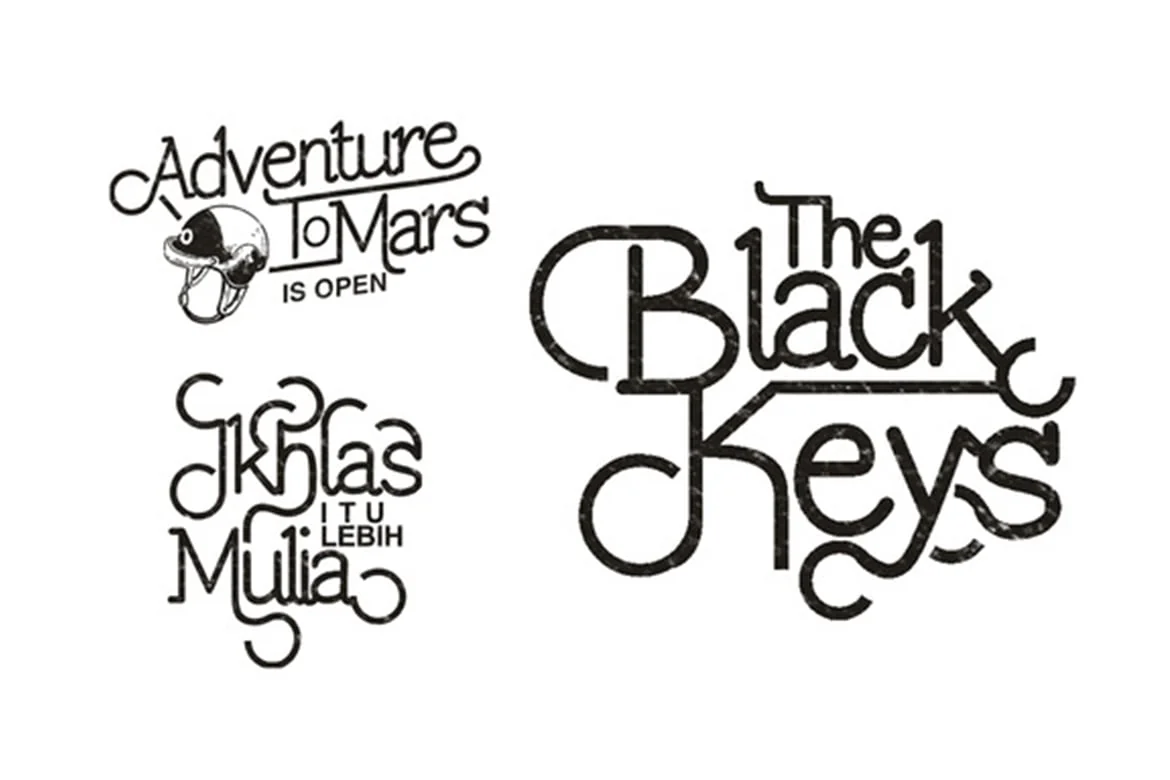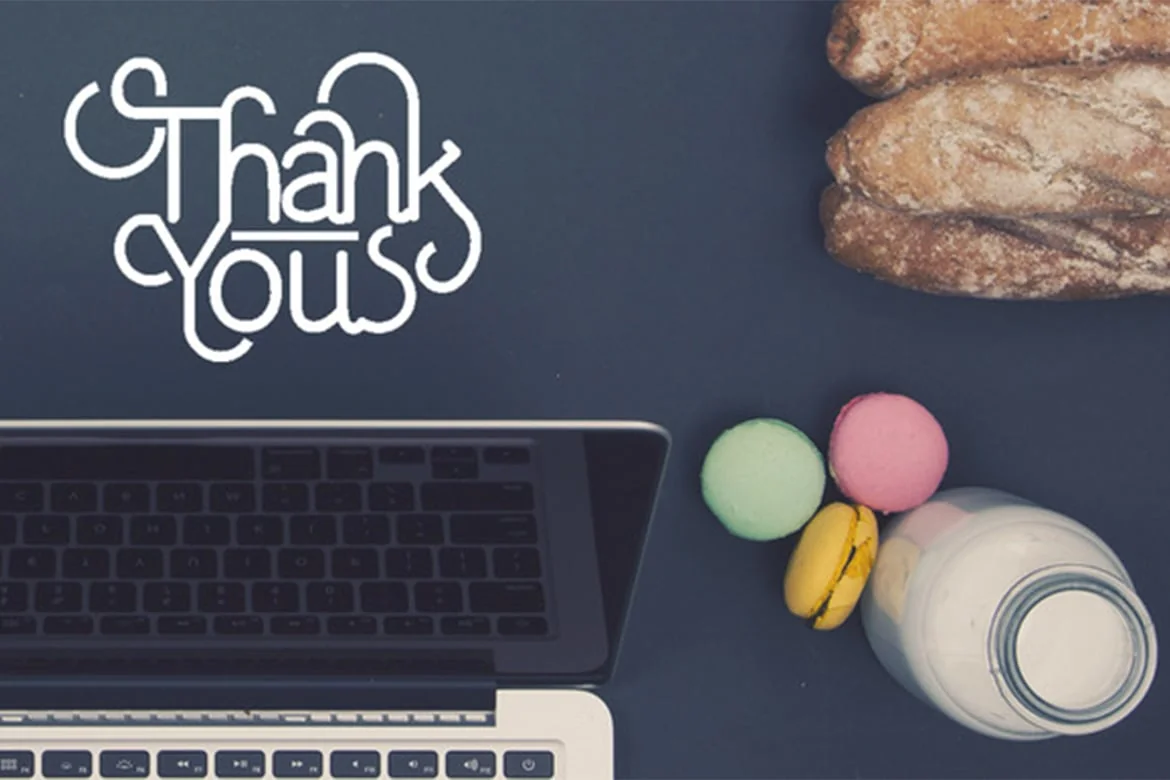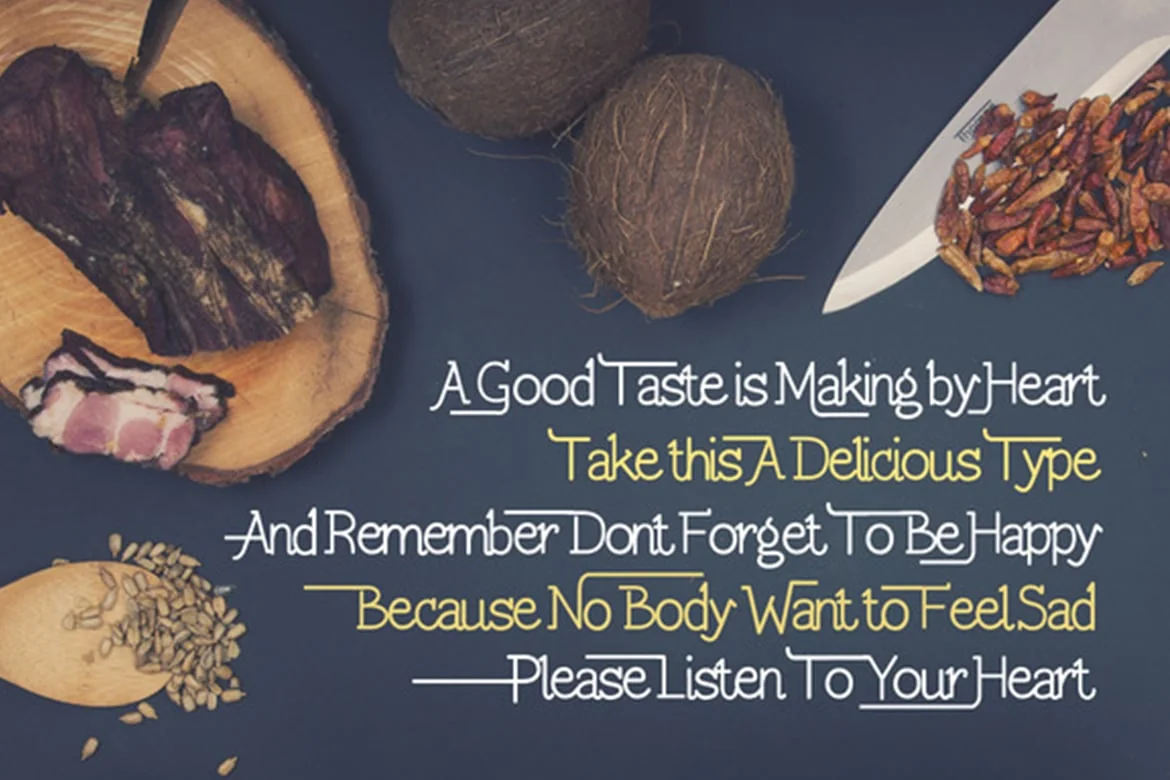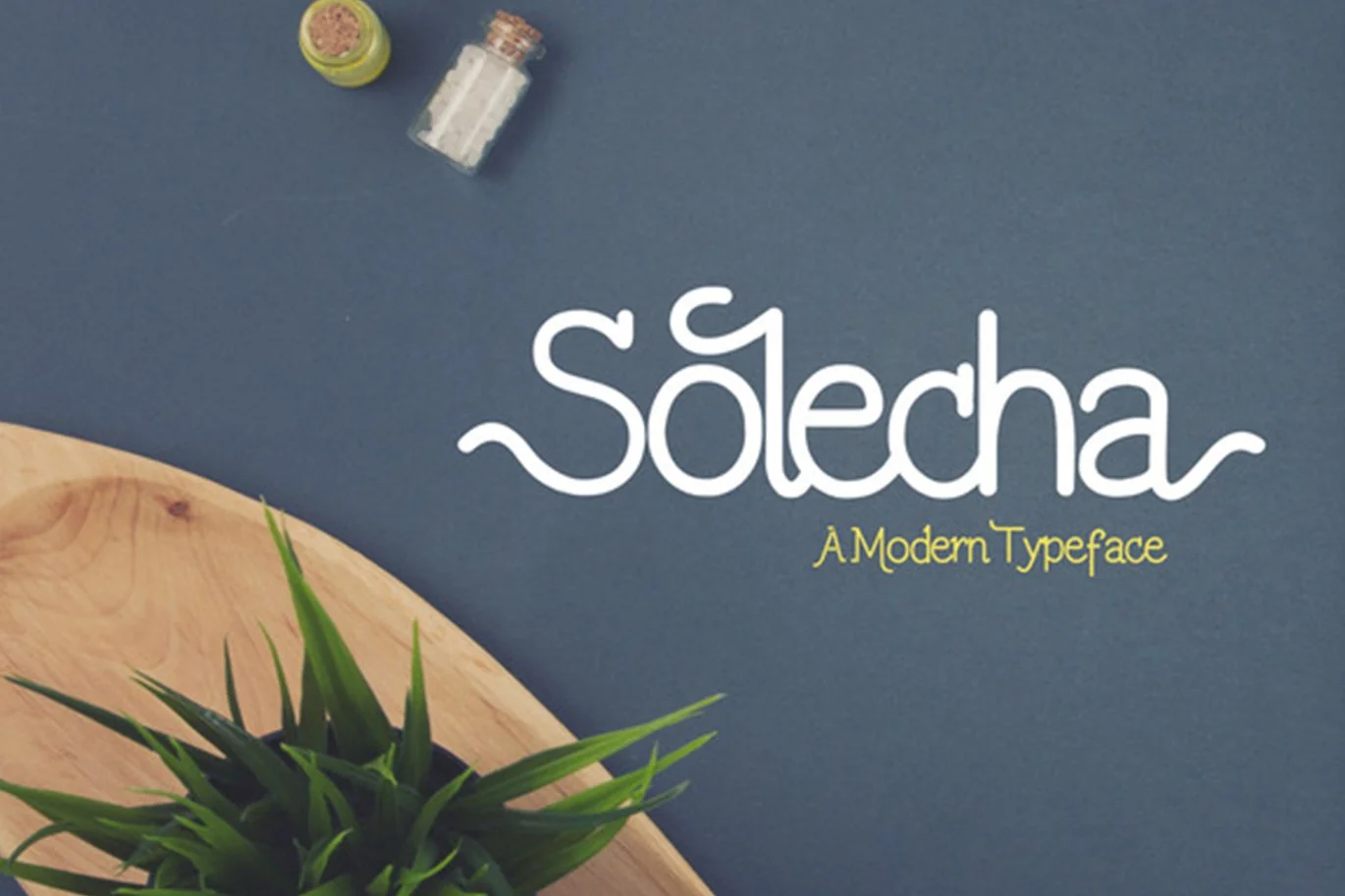
Solecha Font
Solecha Typeface is a modern and clean shape typeface with a customible style it’s perfect for creating a wedding invitation (Initial), a headline, logotype, and t-shirt/ apparel design. The characteristic of Solecha is rounded, clear, and flowing inspired by water and wind clip art that have a unique characteristic flowing everywhere